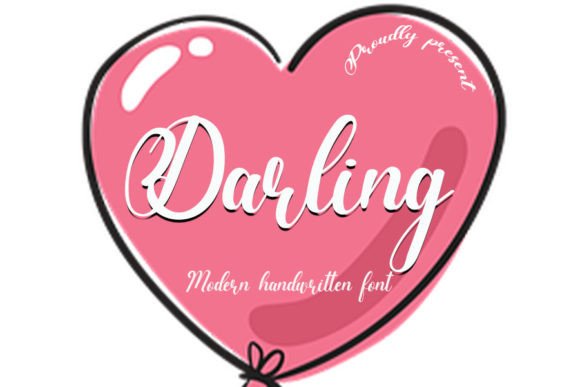
About Darling Font
Darling Font is a modern handwritten script inspired by the timeless beauty of calligraphy. With smooth strokes and a spotless form, this font blends tradition with contemporary design. Because it strikes the perfect balance between thin and bold strokes, Darling Font enhances both casual and formal projects with ease.
A Handwritten Script with Modern Elegance
Handwrittenfonts naturally add charm, but Darling Font elevates this charm with a modern vibe. Its stylish strokes reflect calligraphic influences while staying approachable. Moreover, it is carefully designed to remain clear and readable, which makes it practical for multiple uses. As a result, Darling Font becomes a reliable choice for creative professionals and hobbyists alike.
When creating invitations or greeting cards, Darling Font delivers sophistication. For example, it can turn wedding stationery into elegant keepsakes. In addition, it works well for thank-you notes, birthday invitations, and seasonal greetings. Because of its flowing structure, every message feels heartfelt, stylish, and memorable.
A Script Typeface for Logos and Branding
Businesses and content creators often look for fonts that combine elegance with modernity. Therefore, DarlingFont is perfect for logos, packaging, and product labels. On social media, it helps posts, banners, and stories gain attention with a professional yet creative look. When paired with a clean sans serif, it creates a polished identity that feels timeless.
Flexible Across Print and Digital Projects
Another strength of Darling Font is its adaptability across formats. In print, it looks stunning on posters, magazines, brochures, and merchandise. Digitally, it improves websites, presentations, and blog graphics. Since it is inspired by calligraphy, it retains a handcrafted charm while blending smoothly into modern layouts, making it a versatile addition to your design library.